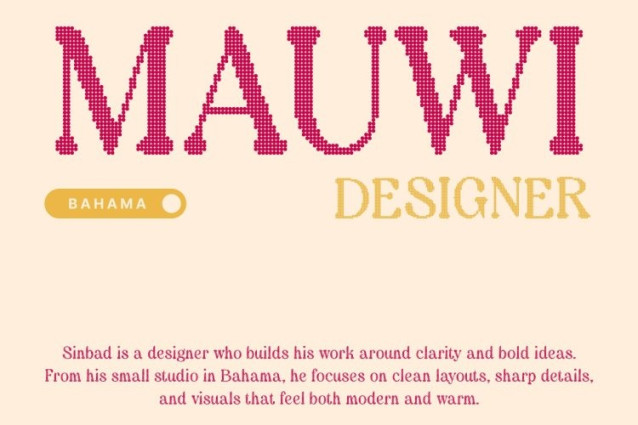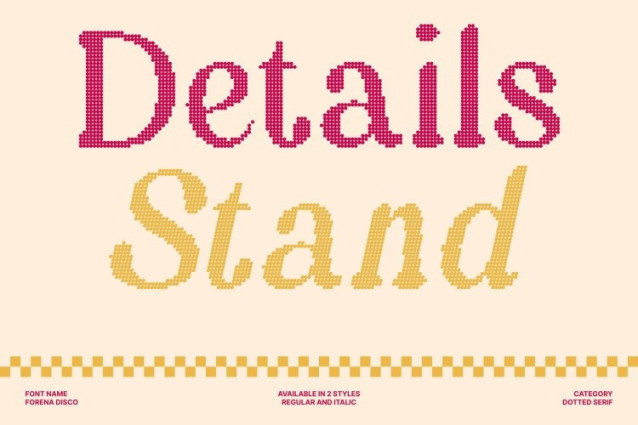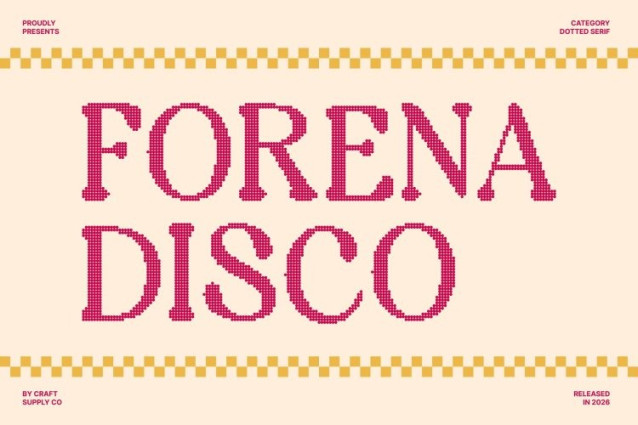
Forena Disco Font
Forena Disco Font – This is a contemporary round serif typeface that blends clean modern structure with refined elegance and a subtle disco-inspired presence. Its polished construction feels confident and stylish, delivering a sophisticated visual tone that feels both current and timeless.
High Contrast for Refined Visual Impact
The high-contrast letterforms give a graceful and luxurious character. Thick and thin strokes interact beautifully, creating a dynamic rhythm that feels elegant yet expressive. This contrast adds drama and clarity, making the font ideal for designs that demand attention without losing refinement.
Rounded Serifs with Warm, Stylish Charm
Softly rounded serif details bring warmth and approachability to the font’s modern foundation. These smooth curves soften the contrast and geometry, creating a balanced personality that feels elegant, friendly, and visually inviting. The result is a serif font that feels luxurious but never rigid.
Versatile for Premium Branding and Editorial Design
Designed for flexibility, performs beautifully across branding, editorial layouts, packaging, digital platforms, and modern visual identities. Whether used for headlines, logos, or refined typography systems, it delivers elegance, clarity, and contemporary charm in every application.